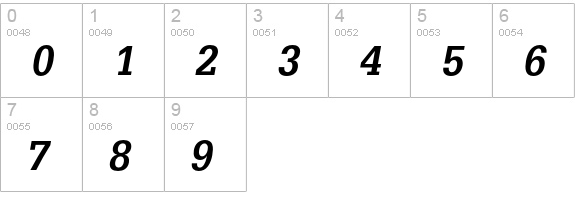
Glypha 65 Bold Oblique Font Details
Glypha 65 Bold Oblique is a strong, high-contrast, italic variant in the Glypha typeface family \xE2\x80\x94 well suited to headlines, attention-grabbing titles, and strong calls-to-action.
Glypha 65 Bold Oblique is a striking and bold typeface that exudes a sense of strength and modernity. Its sleek oblique design adds a dynamic touch to any project, making it a versatile choice for a wide range of applications. The sharp angles and clean lines of Glypha 65 Bold Oblique give it a contemporary aesthetic that commands attention and makes a bold statement. This font is perfect for headlines, logos, posters, and any other design project where you want to make a strong visual impact. Its bold weight and oblique style combine to create a sense of movement and energy, making it an excellent choice for projects that require a sense of urgency or excitement. The best part is that Glypha 65 Bold Oblique is available for free download at FontsMarket.com, making it easily accessible to anyone looking to add a touch of boldness to their designs. Whether you're a seasoned designer looking for a new font to add to your collection or a beginner searching for the perfect typeface for your next project, Glypha 65 Bold Oblique is sure to impress with its bold style and modern appeal.